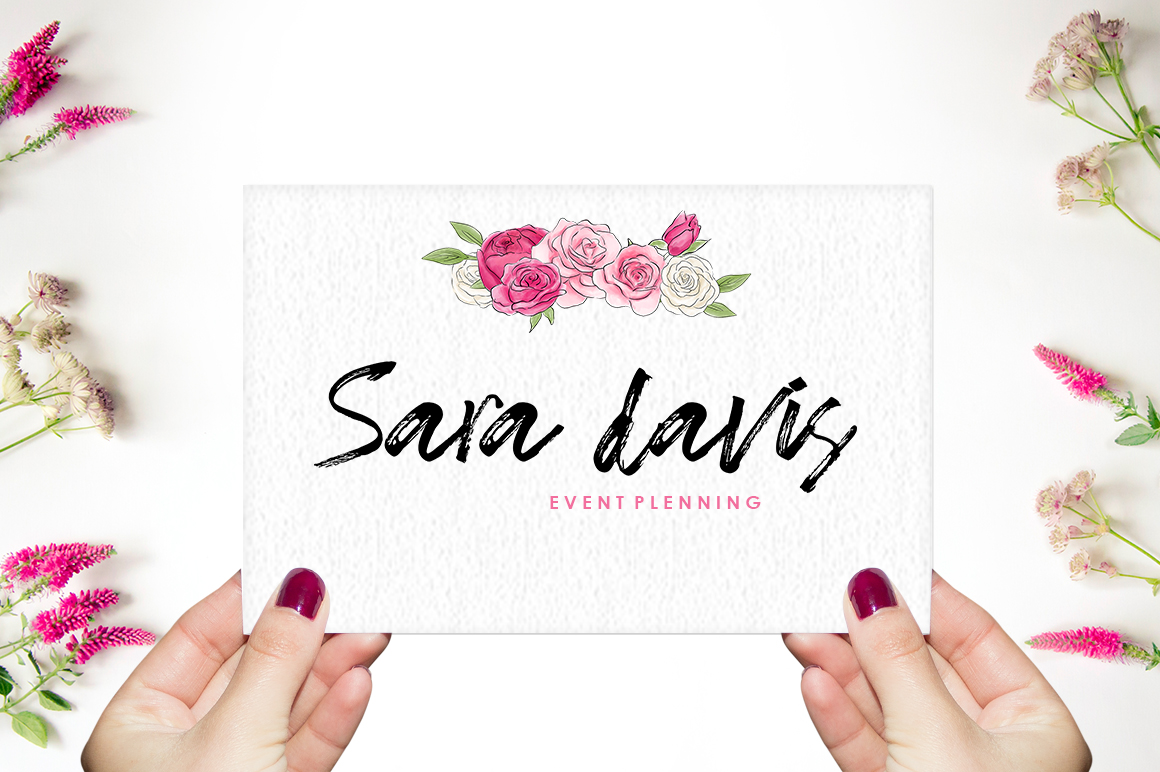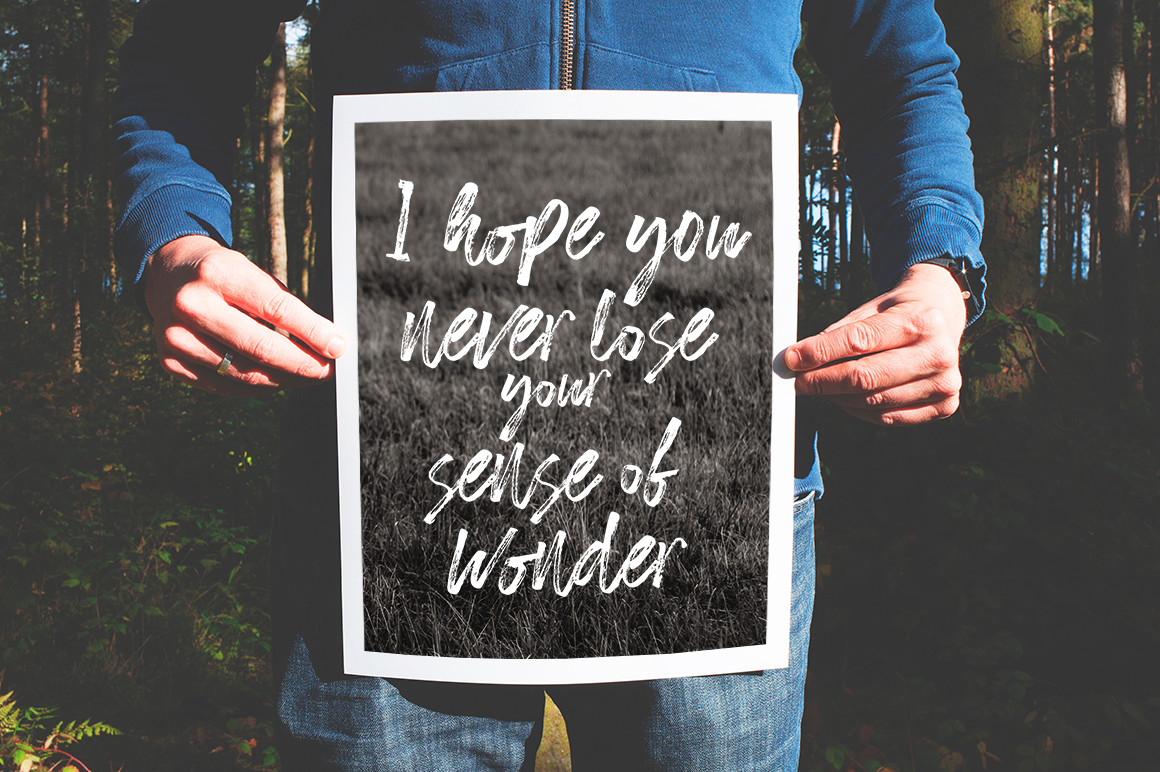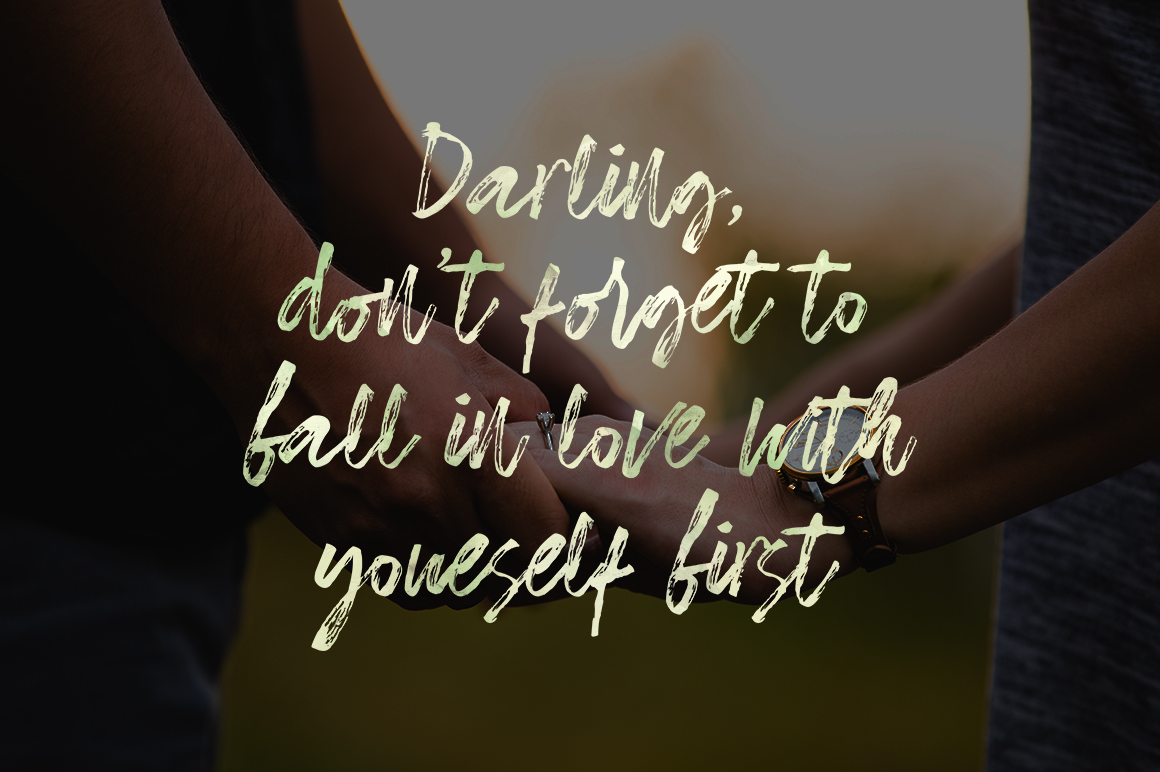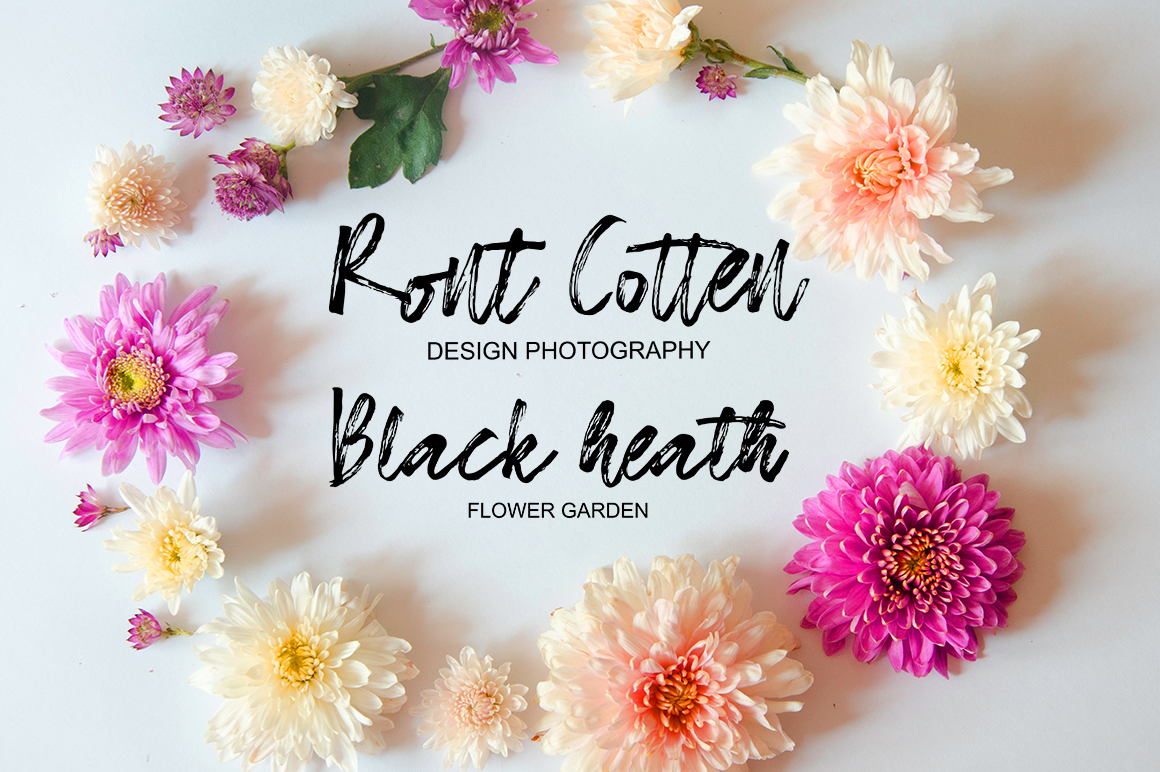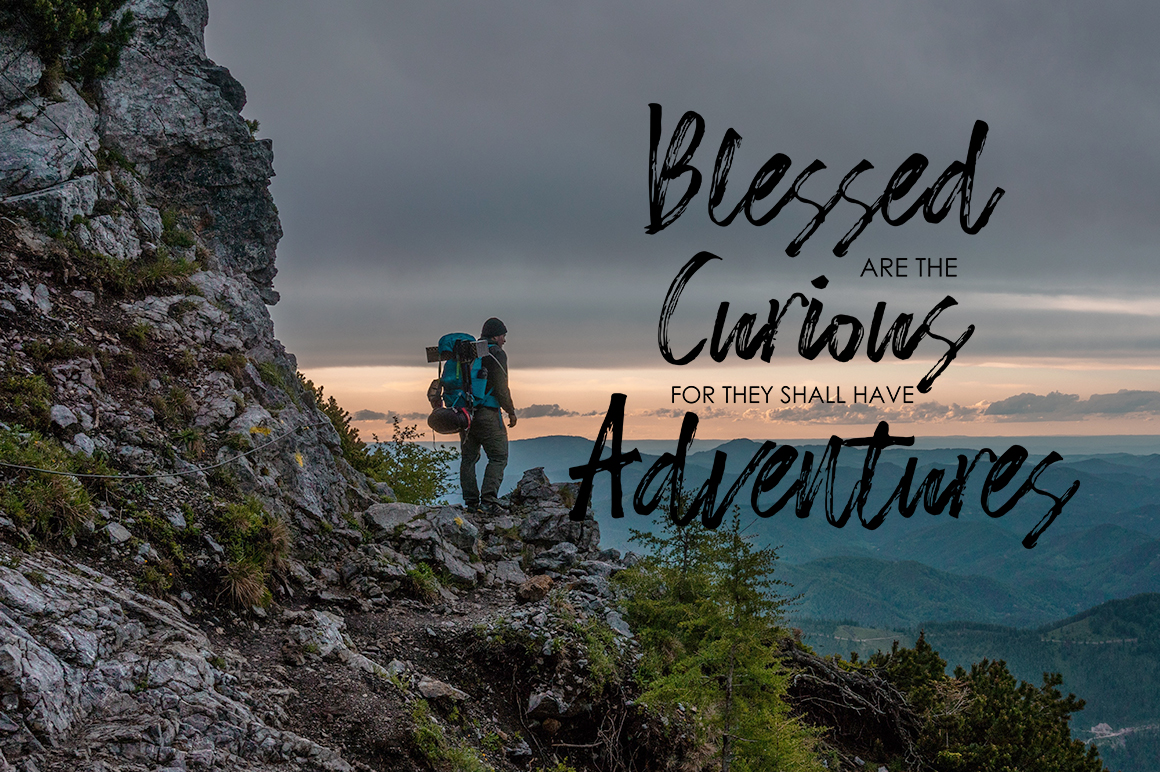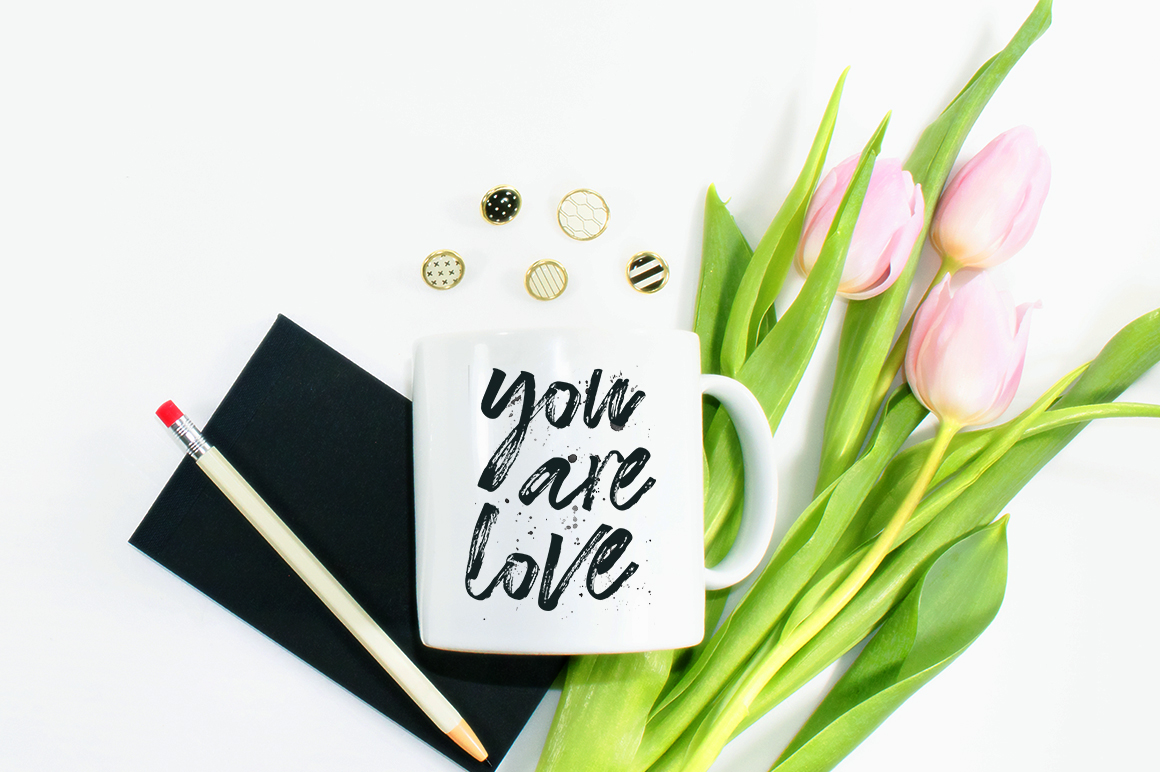
Introducing Almirra Font: A Lovely Handwritten Script
Are you tired of using the same old fonts in your designs? Look no further! Almirra Script is a beautiful, handwritten script font that is sure to add a touch of elegance and personality to your projects. Based on the expression of a signature style that flows freely, friendly, and organically, Almirra Font is the perfect choice for designers and crafters looking for a unique and versatile font.
What Makes Almirra Font Special?
Almirra Script is a hand-painted font, created with love and care to ensure that every letter and stroke is unique and full of character. This font is not just a collection of letters and numbers; it’s a work of art that can be used in a wide range of ways. Whether you’re designing a logo, creating a social media graphic, or crafting a handmade card, Almirra Font is the perfect choice.
Features of Almirra Font
- Handwritten Script: Almirra Script is a handwritten script font that is full of personality and character.
- Unique and Organic: Each letter and stroke is unique, giving the font an organic and natural feel.
- Versatile: Almirra Font can be used in a wide range of projects, from logos and branding to social media graphics and handmade crafts.
Who Can Benefit from Almirra Font?
Almirra Font is perfect for a wide range of designers and crafters, including:
- Graphic Designers: Add a touch of elegance and personality to your logos, branding, and marketing materials.
- Social Media Influencers: Create eye-catching social media graphics and posts that stand out from the crowd.
- Crafters: Add a personal touch to your handmade cards, scrapbooking, and other crafts.
- Small Business Owners: Create professional-looking marketing materials and branding that reflects your unique style.
- Experiment with Different Sizes: Almirra Font looks great in a variety of sizes, from large headings to small text.
- Play with Color: Try using different colors and textures to add depth and interest to your designs.
- Mix and Match: Combine Almirra Font with other fonts and graphics to create unique and eye-catching designs.
In conclusion, Almirra Font is a lovely handwritten script font that is perfect for designers and crafters looking for a unique and versatile font. With its organic and natural feel, ease of use, and stunning style, Almirra Font is sure to add a touch of elegance and personality to your projects. Download Almirra Font today and start creating beautiful, eye-catching designs that stand out from the crowd!